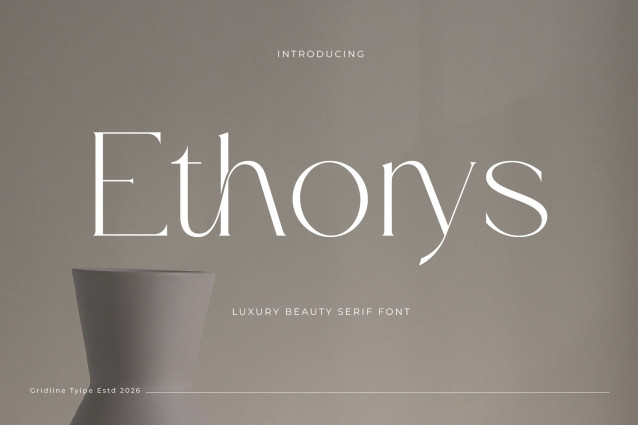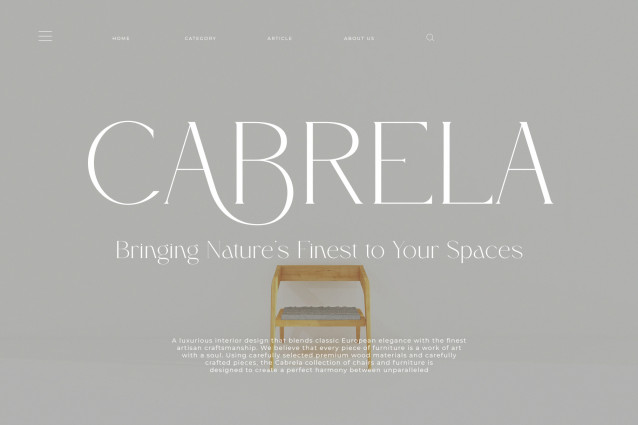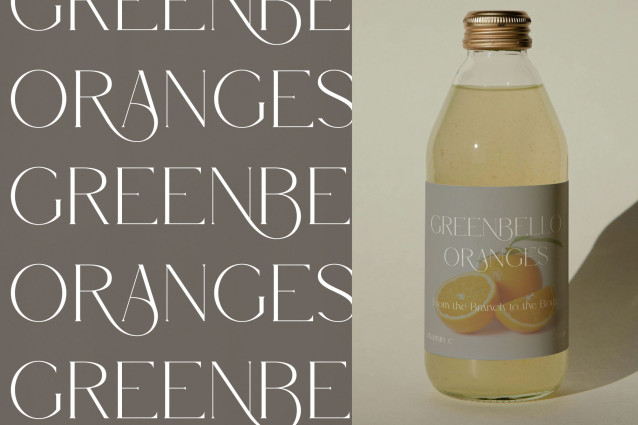
Introducing **Ethorys** the elegant, beautiful, and modern Serif. With its modern and minimalist look, Ethorys brings a luxurious, classy, and clean style to your projects such as websites, modern logos, brand identities, social media quotes, wedding stationery, magazines, and more!
Ethorys features unique and classy capital letters A to Z and also comes with unique alternates making Ethorys a beautiful font that can be customized for various projects and jobs you want.